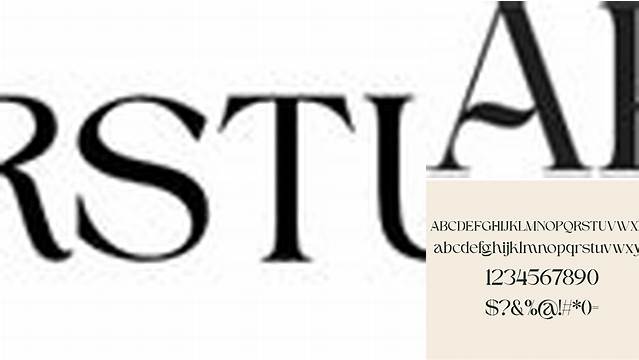
What Makes Higuen Regular Font So Special?
First, let's talk about why the Higuen Regular font has captured the attention of designers and creatives alike. Fonts play a crucial role in visual communication, setting the tone and conveying the personality of your message. Higuen Regular boasts a clean, modern aesthetic that makes it incredibly versatile for a wide range of projects. Whether you're designing a website, creating marketing materials, or working on a personal project, this font can add a touch of sophistication and readability. Its balanced letterforms and consistent weight distribution ensure a pleasant reading experience, making it suitable for both headlines and body text. The font's clarity shines in both digital and print mediums, making it a reliable choice for designers working across various platforms.
Moreover, the Higuen Regular font distinguishes itself with its subtle elegance. It's not overly flashy or distracting; instead, it offers a refined look that enhances the overall design without stealing the spotlight. This understated charm makes it an excellent choice for projects that require a professional and polished appearance. From corporate branding to editorial layouts, Higuen Regular seamlessly integrates into diverse design contexts. The font’s design considers the intricacies of visual hierarchy, allowing designers to effectively guide the reader's eye and create a harmonious composition. It's a font that respects the content it presents, ensuring that the message remains the focal point while adding a layer of visual appeal.
Another reason why designers love Higuen Regular is its adaptability. The font family often includes various weights and styles, giving you the flexibility to create visual interest and hierarchy within your designs. By combining different weights of Higuen Regular, you can easily create a cohesive and visually engaging layout. For instance, you might use the bold weight for headlines and the regular weight for body text, creating a clear distinction between different sections of your design. This versatility makes Higuen Regular a valuable asset in any designer's toolkit, empowering them to tackle a wide range of projects with confidence and creativity. Whether you're working on a minimalist design or a more complex layout, Higuen Regular can help you achieve a polished and professional result.